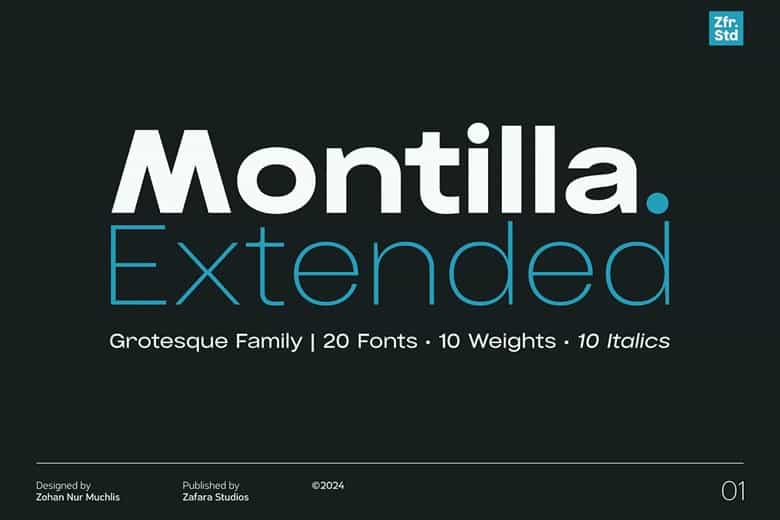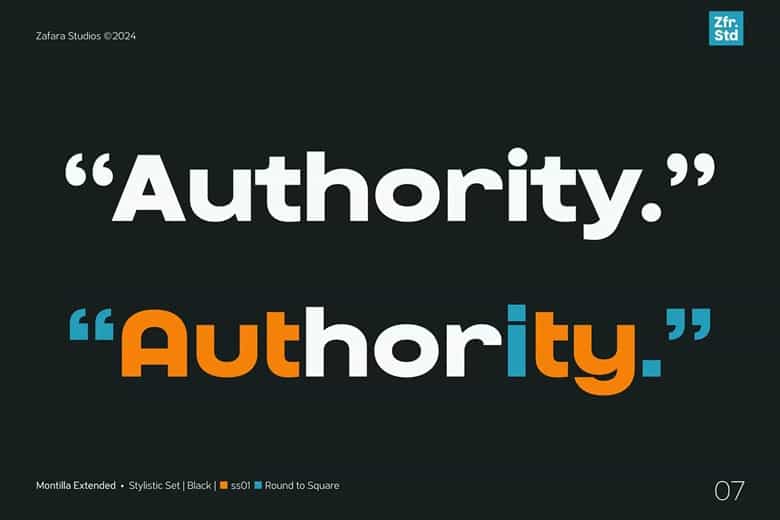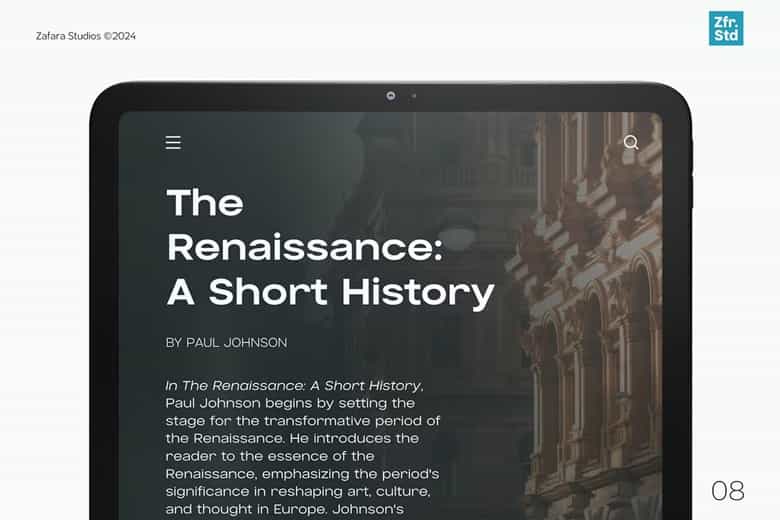
Montilla is a sans serif font family that can be used across a wide range of media, it is clean and geometric with no additional flourishes that might interfere with readability. It adds minimal aesthetic value and visual appeal to the office environment and is perfect for the modern or the professional who values functionality and ease of use of a watch.